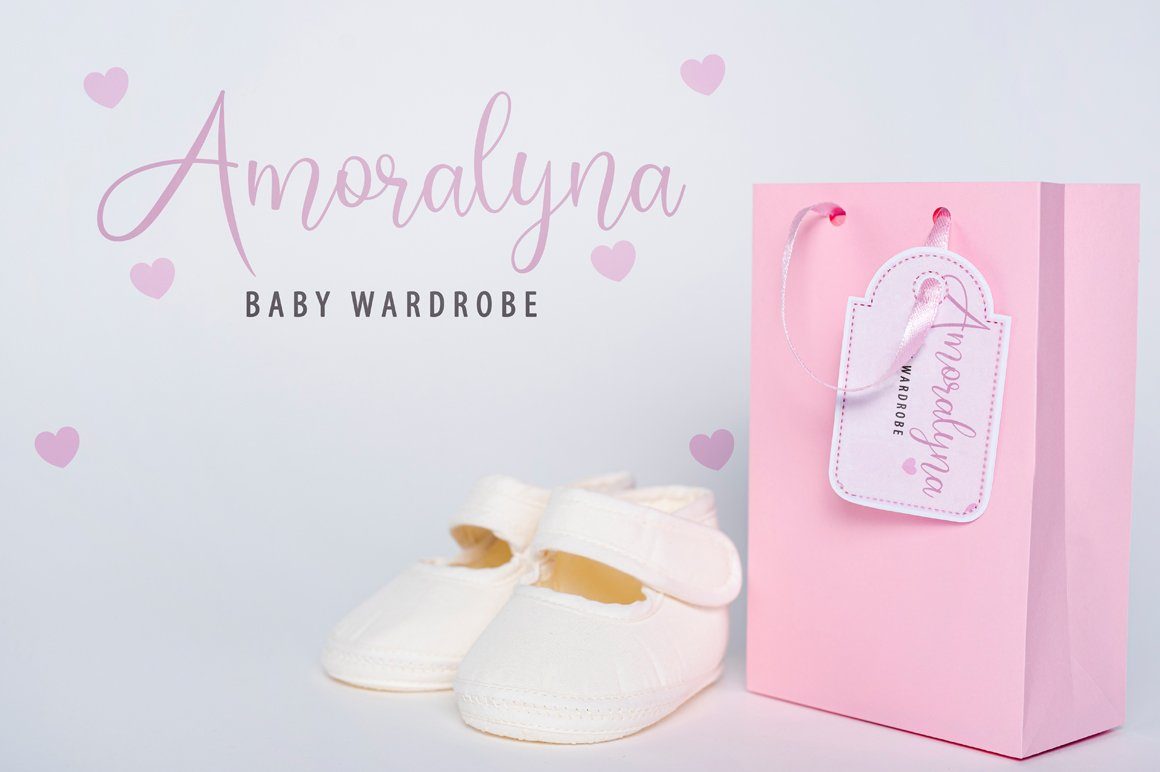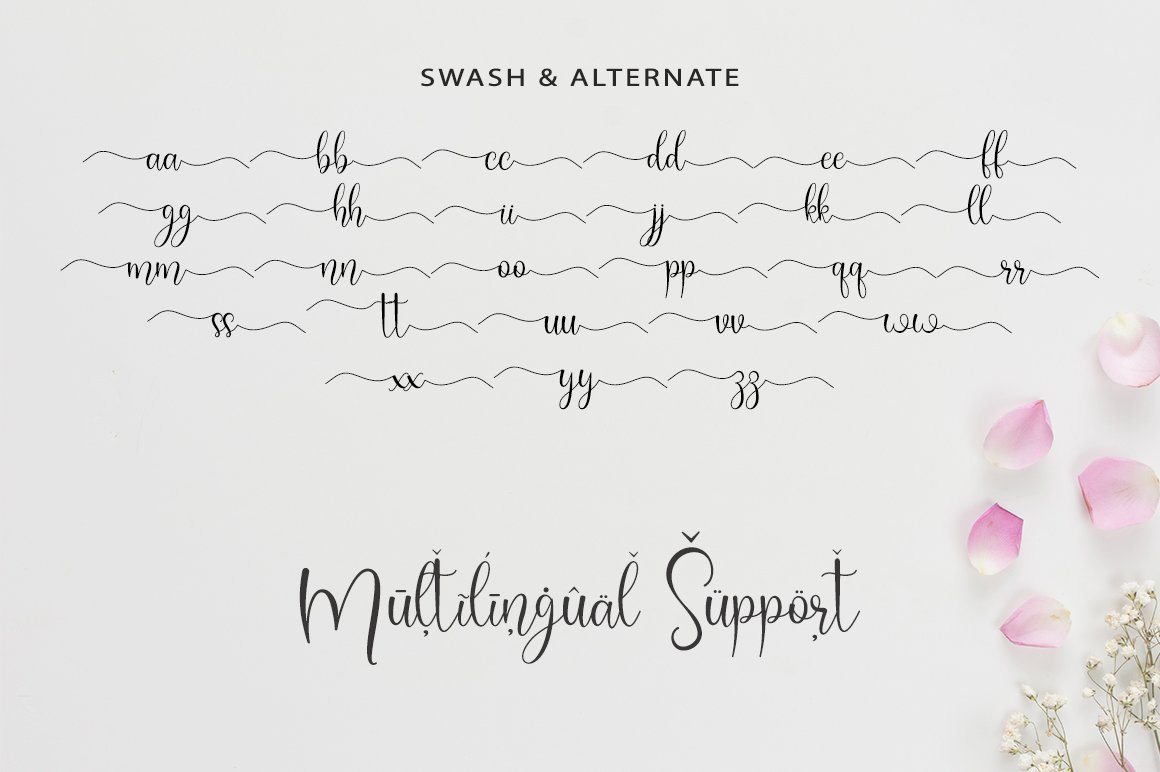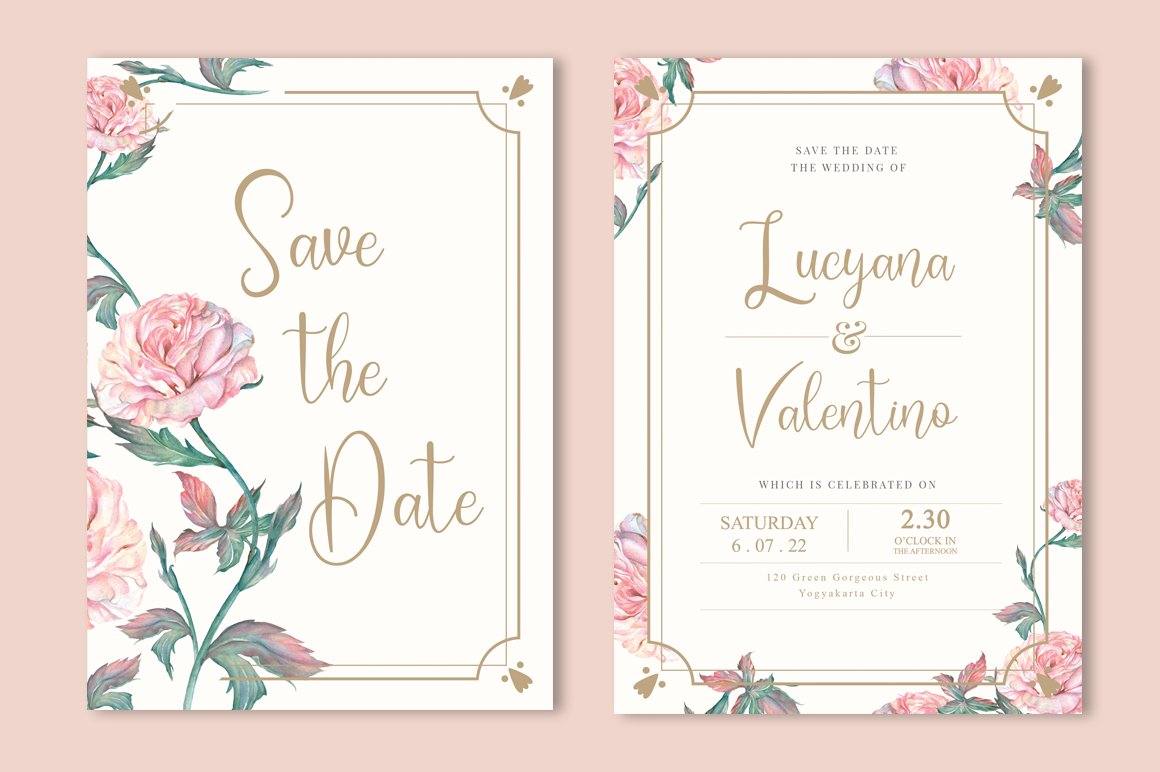
About monalisa lovely font
The \”monalisa\” is a stylish feminine font. It includes amazing swashes which will add a feminine touch to your designs. What’s Included : monalisa OTF monalisa TTF Numeral and Punctuation 156 Swashes International Language Works on PC & Mac Simple installations Accessible in the Adobe Illustrator, Adobe Photoshop, Adobe InDesign, even works on Microsoft Word. Thank you for your purchase! Hope you enjoy with our font!